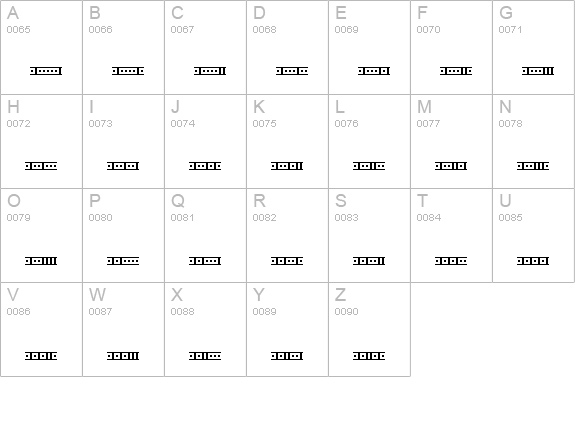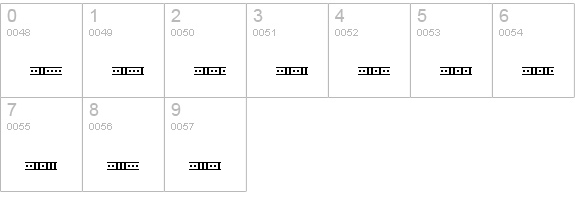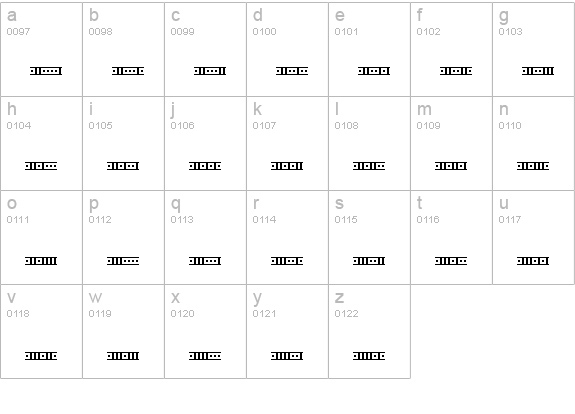
The Binary 01s BRK font is a modern and sleek typeface that features a unique combination of binary code and bold, futuristic design elements. This font is perfect for adding a tech-savvy and cutting-edge touch to your projects, whether you're designing websites, posters, or branding materials. With its sharp edges and distinct style, Binary 01s BRK is sure to make a statement and stand out from the crowd. Best of all, this font is available for free download at FontsMarket.com, making it easily accessible for anyone looking to elevate their design game without breaking the bank. Don't miss out on the opportunity to add this eye-catching font to your collection and take your projects to the next level!